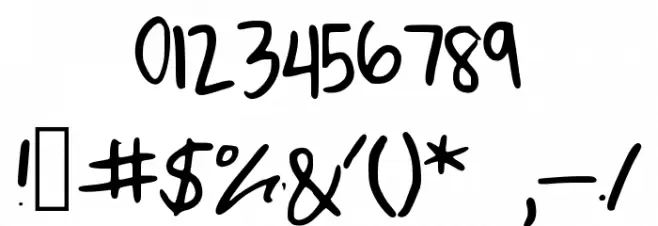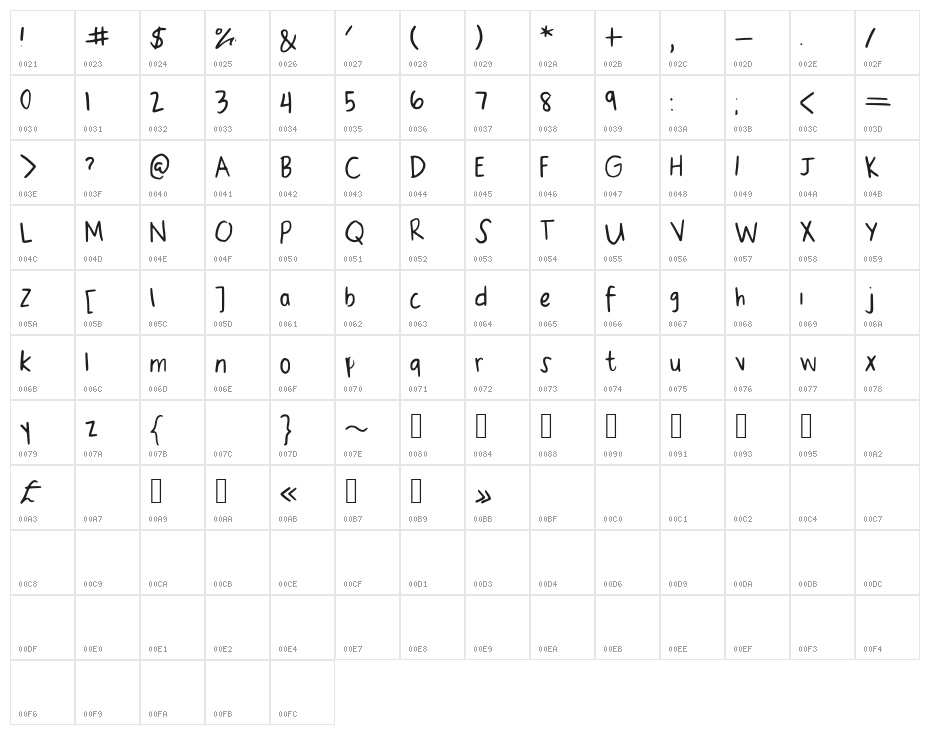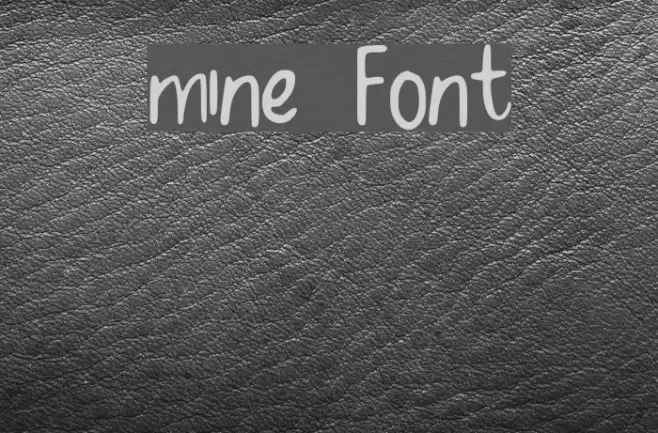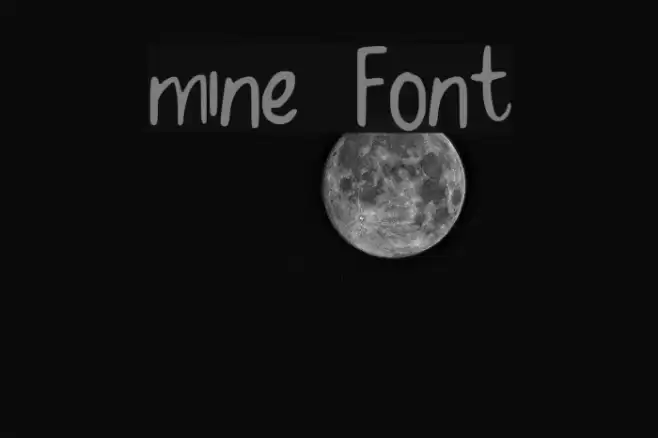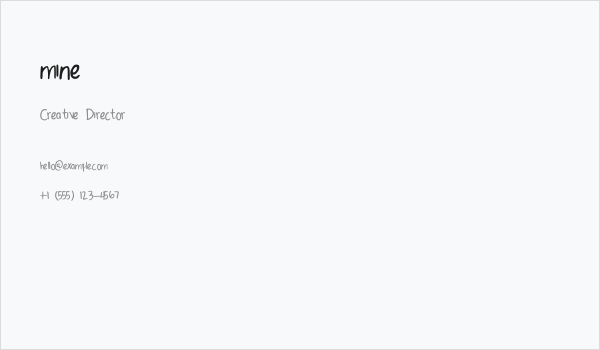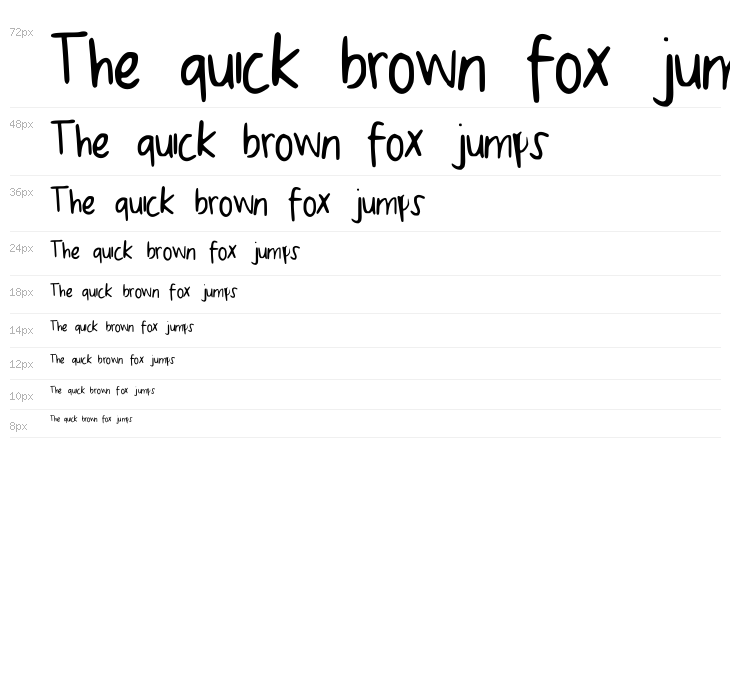
mine Font
This font features a playful and casual handwritten style, characterized by its smooth and slightly irregular strokes that mimic natural handwriting. The letters are slightly slanted, giving a dynamic and informal feel. The uppercase and lowercase letters maintain a consistent flow, with rounded edges and a friendly appearance. The numerals and special characters follow the same style, ensuring uniformity across all glyphs. This font is ideal for projects that require a personal touch or a relaxed, approachable vibe.
Overall StyleCasual, Playful
Use CaseHeadlines, Informal text, Personal projects
Proposed ProjectsIdeal for greeting cards, personal blogs, children's books, and informal branding.